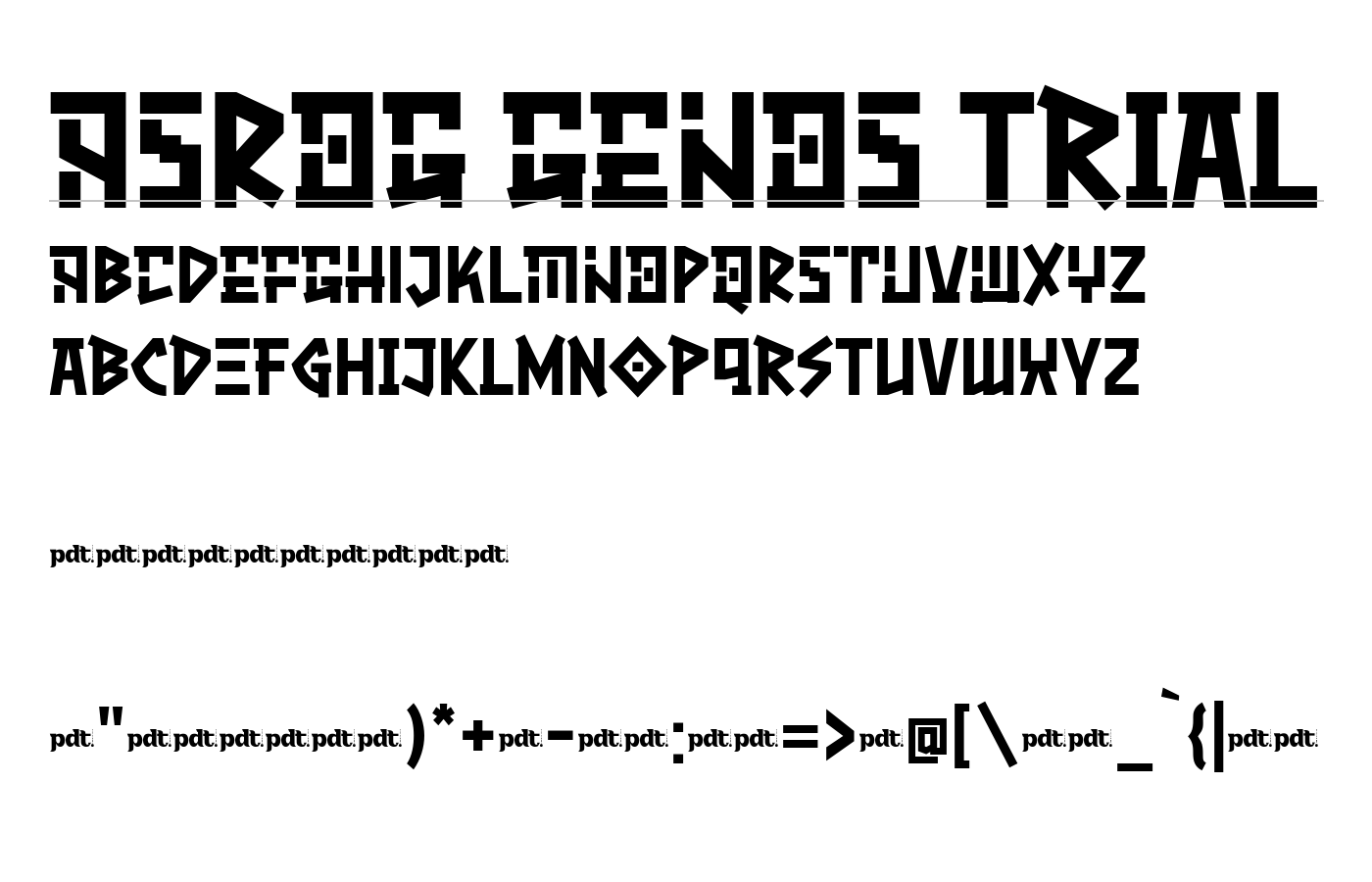
ASROG GENOS trial is a bold, geometric sans serif font with a strong, modern edge. Its angular shapes and high contrast strokes give it a futuristic and tech-inspired personality, making it ideal for eye-catching headlines, logos, and branding where a distinctive, dynamic style is desired. This font works best in designs needing an impactful, contemporary look that stands out with sharpness and confidence.
ASROG GENOS trial Font
About ASROG GENOS trial Font